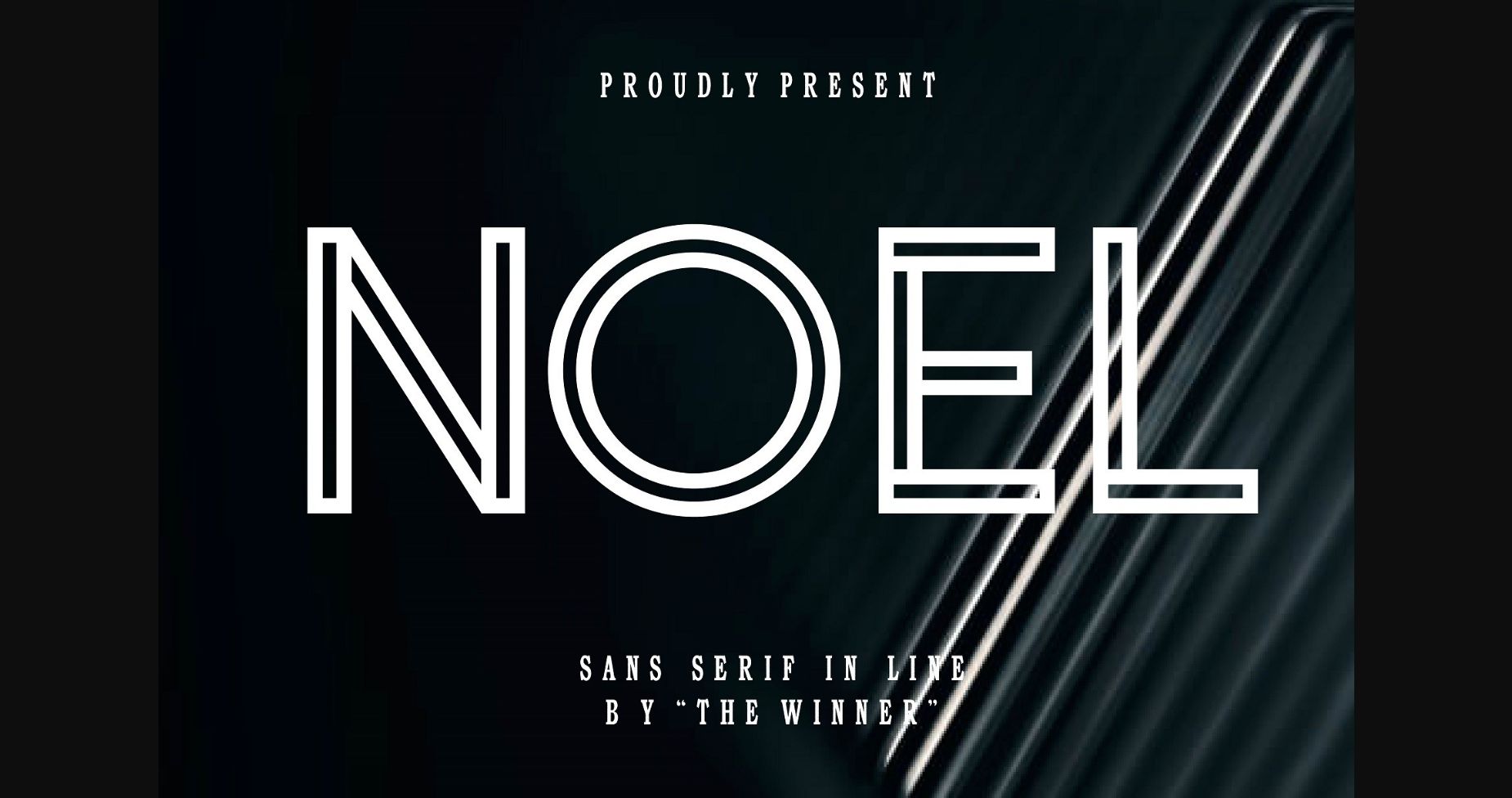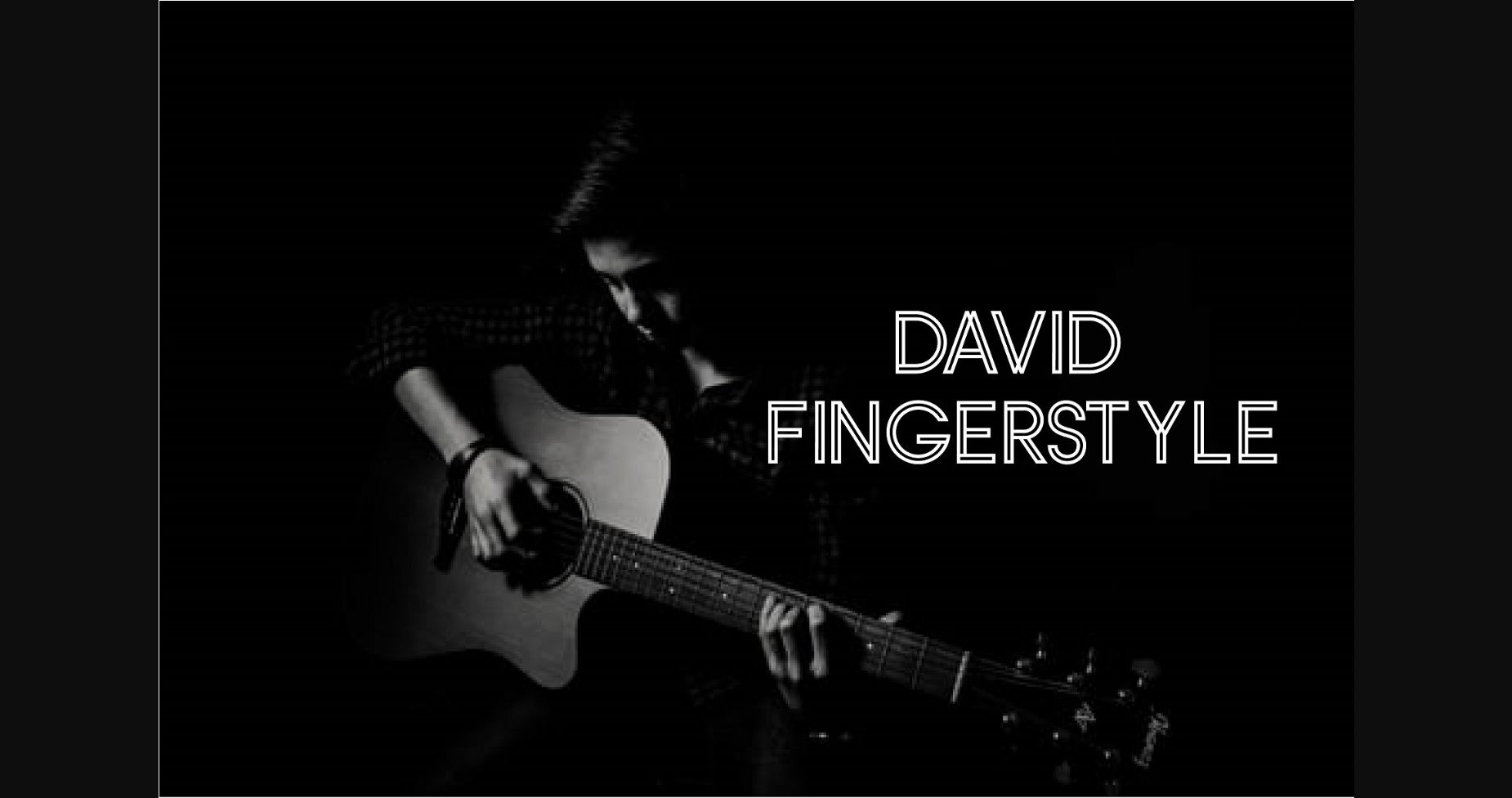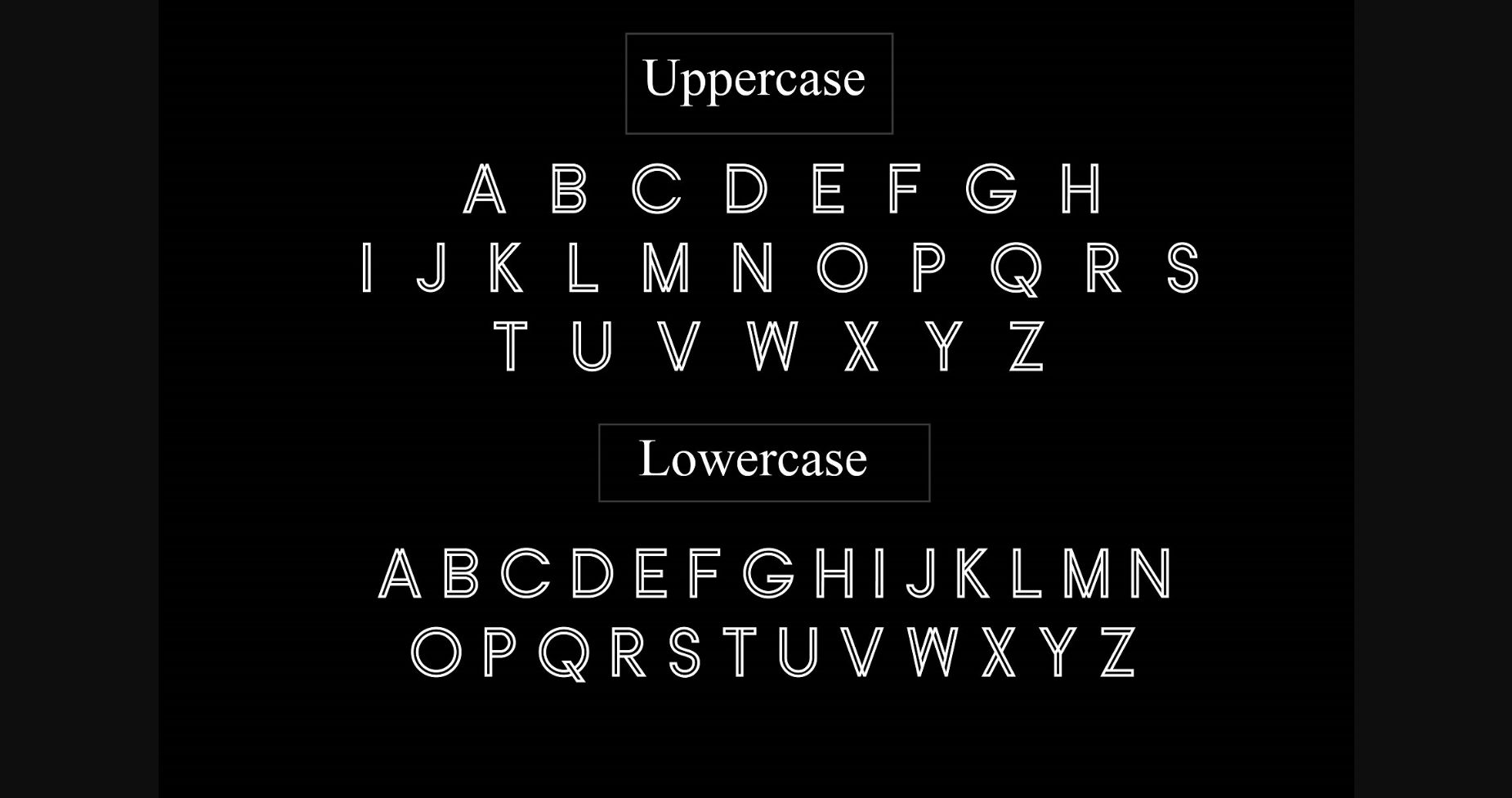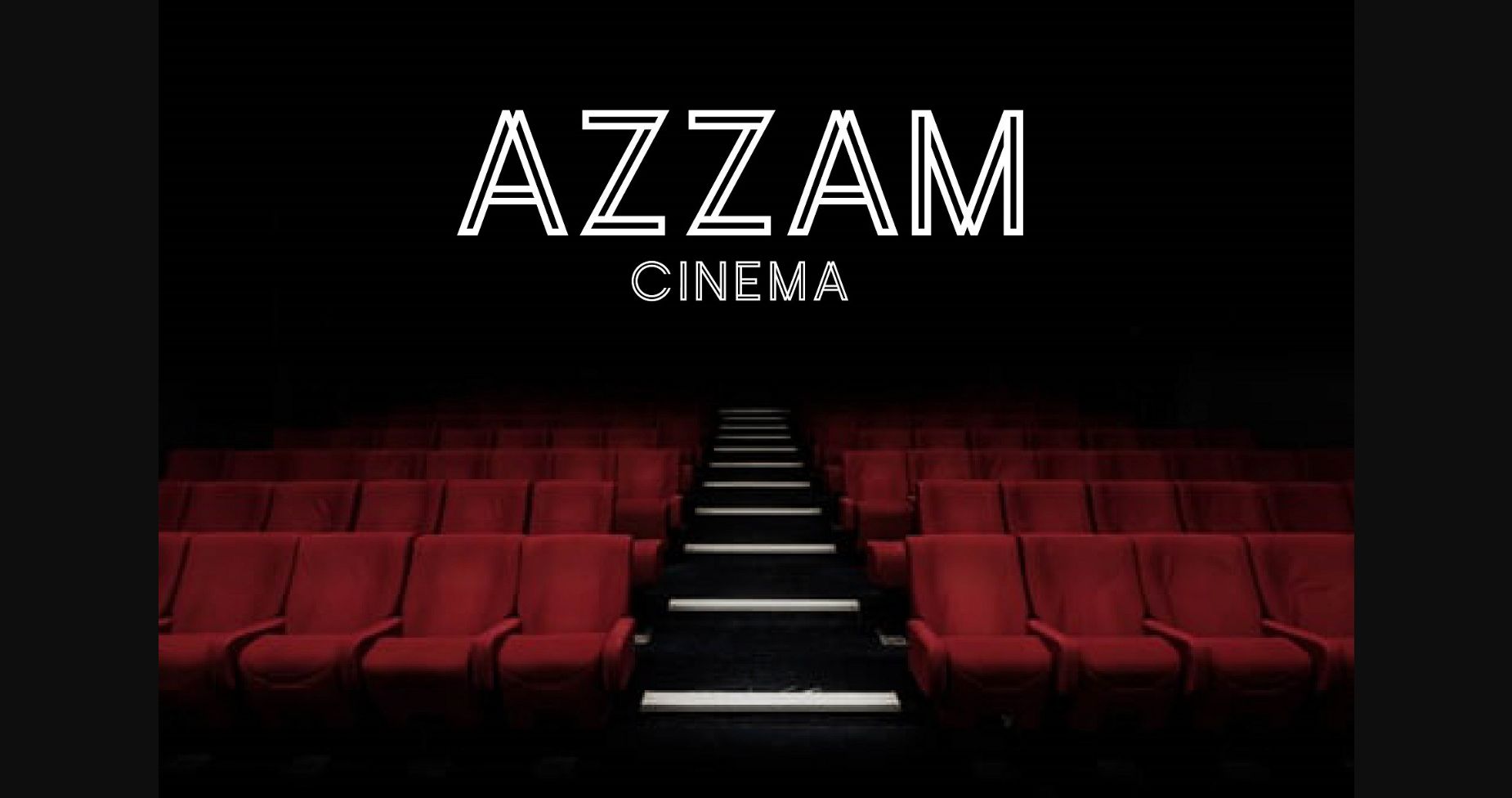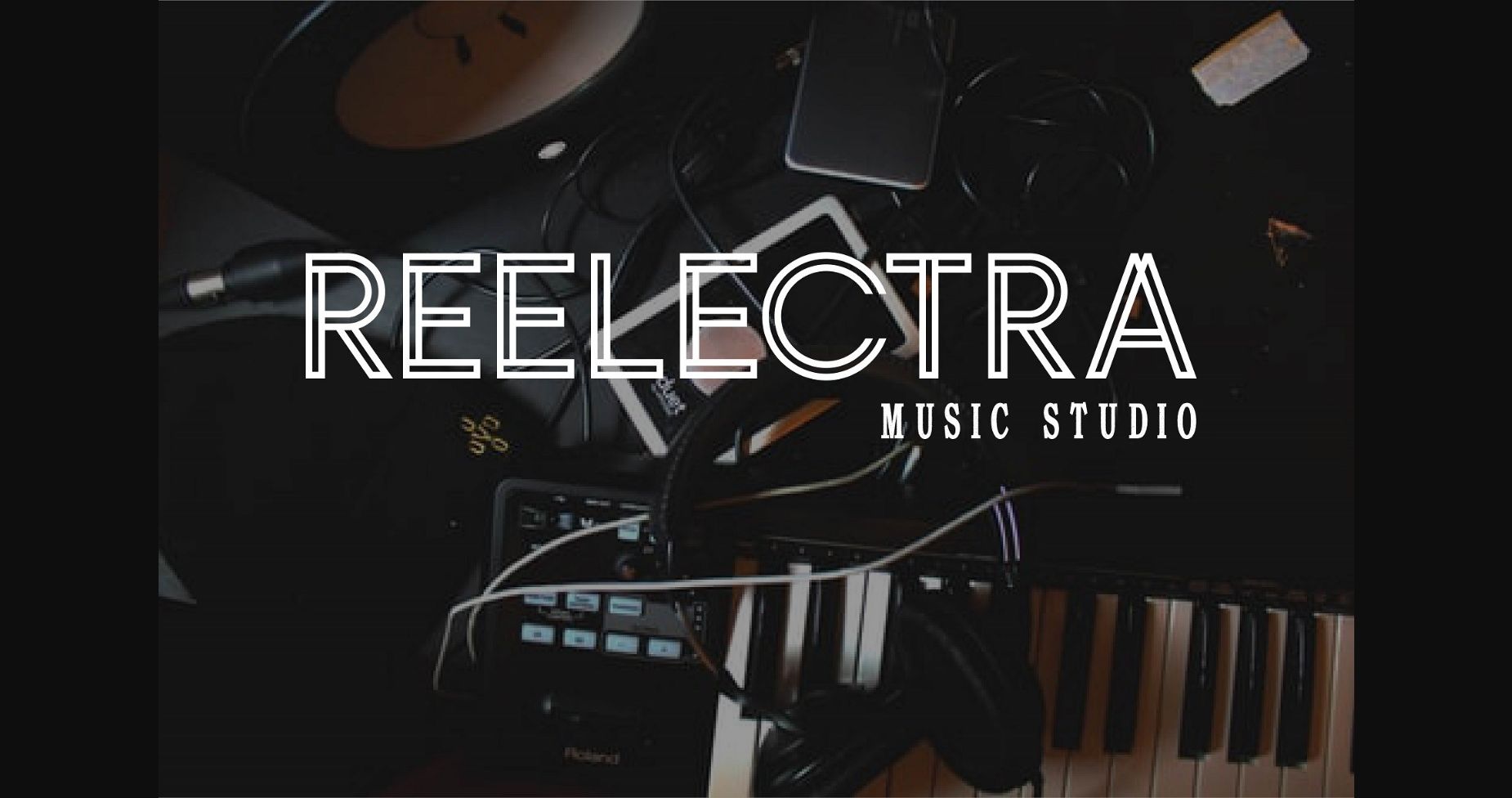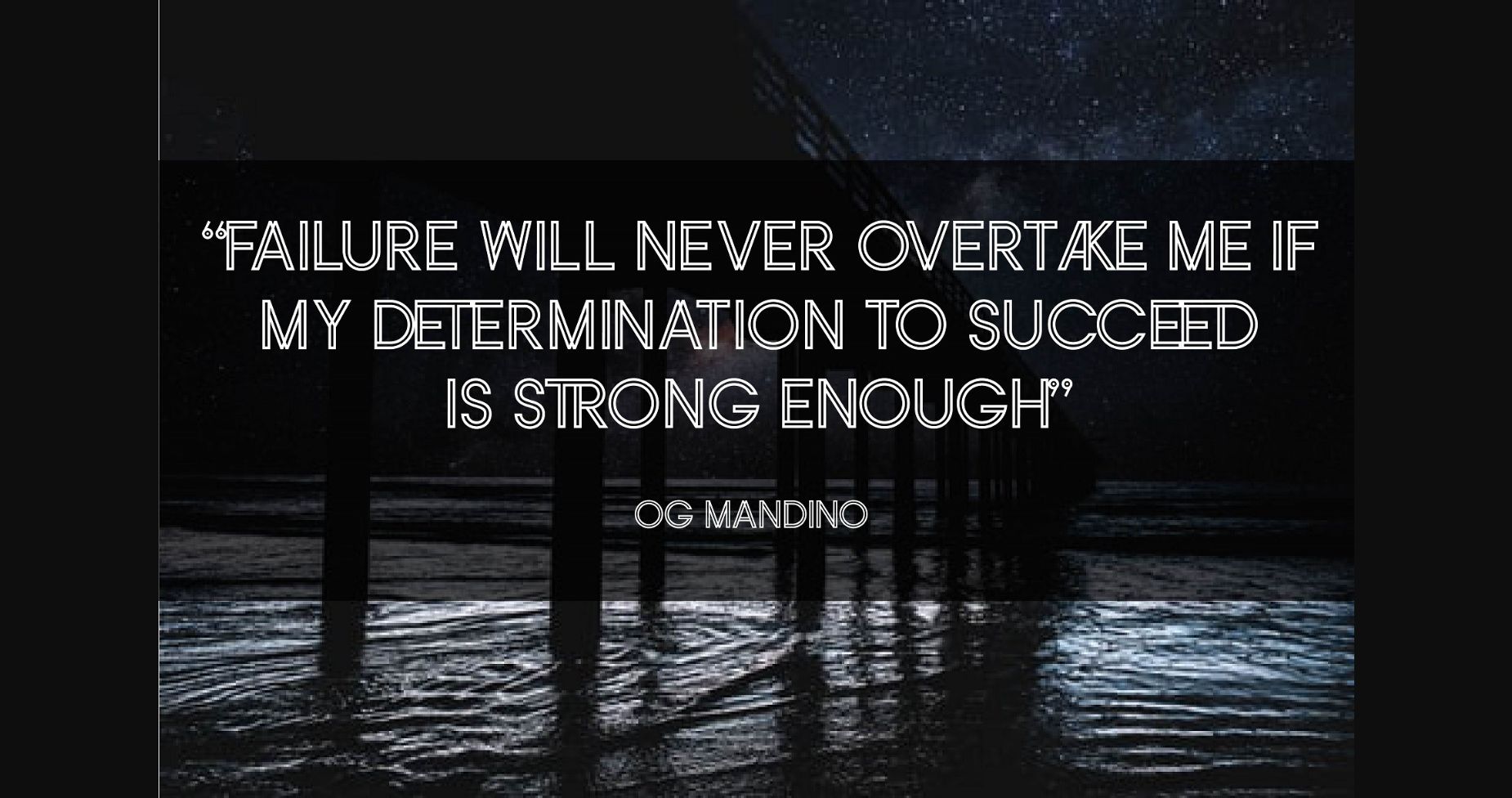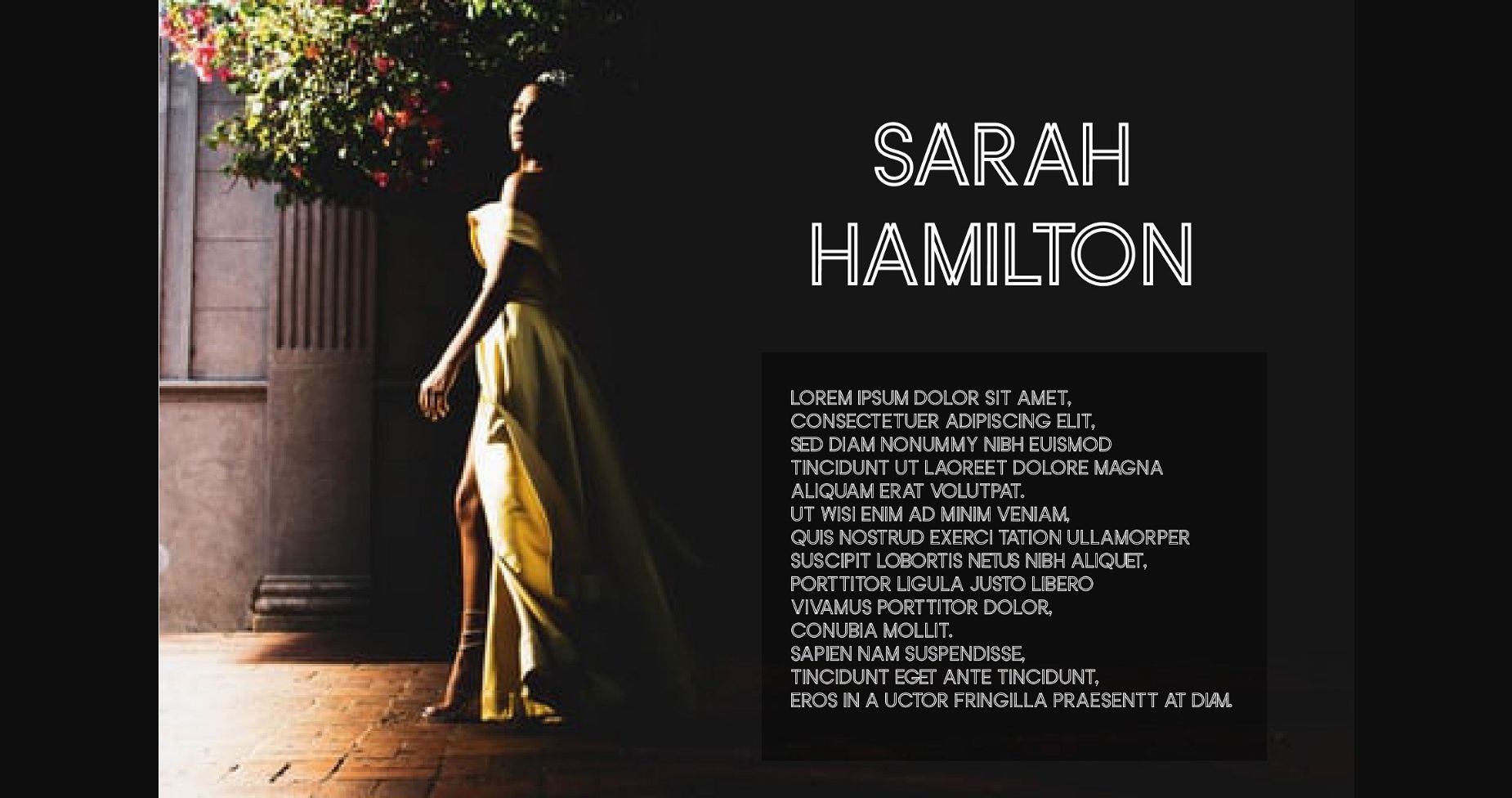
Noel Font
About Noel Font
Introducing Noel – beautiful sans serif font. It’s perfect for branding, product packaging, invitations, quotes, t-shirts, labels, posters, or any logo you want to develop. Make all your design projects more attractive and take your designs to the next level with Noel!